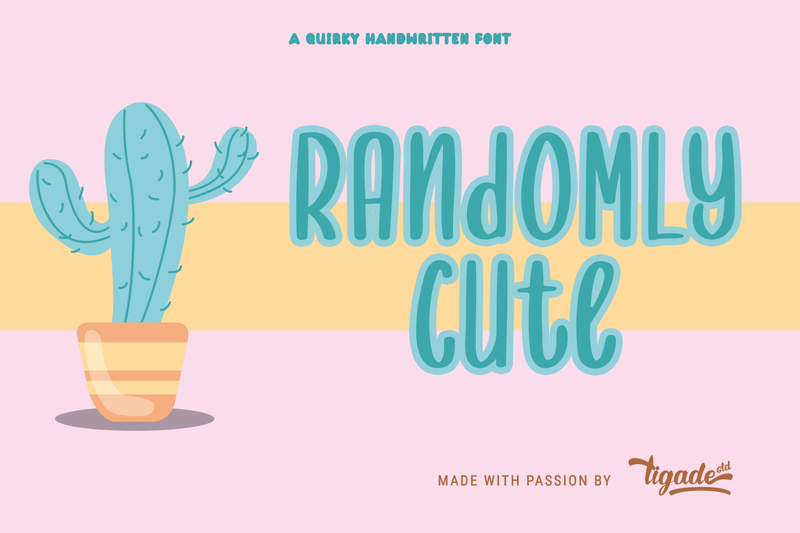
Randomly Cute. Like the name, it is a very random stroke of kid's handwriting. However, it still has the element of cuteness. Great for any general design. It is suitable for Logo, Cards, Branding, Social Media, Youtube Thumbnail, Advertisement, Posters, any many others. Features: - Standard Characters (All Uppercase) - Numerals - Punctuation - International Characters Disclaimer: Clips arts shown in the posters/images are not included. It is for promotional purpose. Enjoy designing and stay Safe! Tigadestd === This font is FREE for PERSONAL USE ONLY. If you want a commercial license, please purchase it from: https://www.tigadestd.com/shop/ https://www.creativefabrica.com/designer/tigade-std/ref/236068/ We may have promotional discount for our new customer. Feel free to contact me. Thanks! ---------------------------------------------------- We are planning to give out freebies periodically in our website. Please subscribe to get the latest update. https://www.tigadestd.com/ ---------------------------------------------------- BAHASA: Perlu diketahui bahwa font ini GRATIS untuk penggunaan PERSONAL SAJA tanpa melibatkan apapun komersil. Segala aktivitas yang berkaitan dengan menghasilkan value, adalah tidak diperbolehkan. Lisensi bisa dibeli di: https://www.tigadestd.com/ More... |